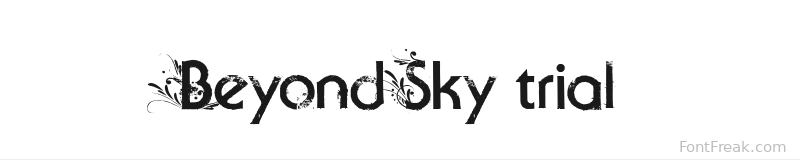
Beyond Sky trial
About Beyond Sky trial
Beyond Sky trial is a captivating decorative font designed by Billy Argel Fonts. This font falls under the display category, characterized by its unique and artistic flair. The visual style of Beyond Sky trial showcases a combination of bold strokes and playful decorative elements, making it an eye-catching choice for various design projects. The strokes exhibit moderate weight, while the contrast between thick and thin lines adds depth and interest. The font features a whimsical arrangement, with some letters adorned with intricate flourishes that enhance its overall aesthetic appeal.
This font is particularly suited for creative applications such as wedding invitations, where its romantic and artistic qualities can set a charming tone. It's also an excellent fit for movie posters, adding a dramatic flair that captures attention. Restaurant menus can benefit from its unique style, creating an inviting atmosphere that reflects the establishment's personality. Additionally, Beyond Sky trial works well for promotional materials aimed at events or creative businesses, appealing to customers with its distinctive design.
The target audience for this font includes graphic designers, small business owners, and content creators looking to elevate their visual branding. Those in the creative industry will appreciate the font's versatility and the way it can enhance their projects.